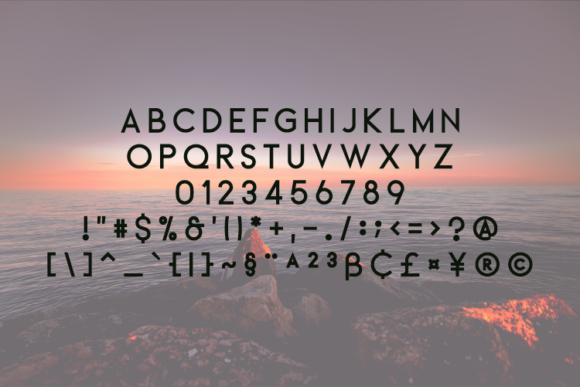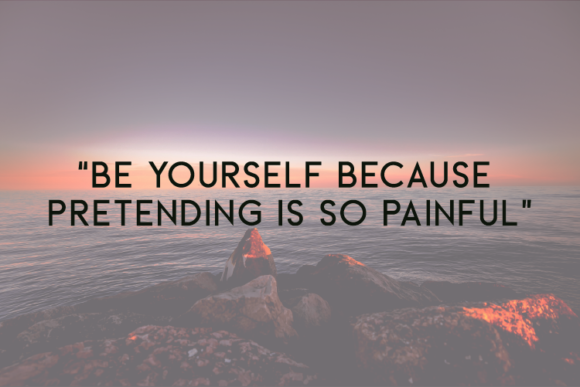
Introduction to Hodtelvo Font
Have you ever stared at a blank canvas, searching for the perfect font to bring your creative project to life? It’s that moment when you need a design resource that’s not only visually stunning but also versatile enough to adapt to any style. For designers like you, finding the right font can be a game-changer. And that’s where the Hodtelvo Font comes in – a modern sans serif font that’s about to revolutionize your design process.
With its neat and beautiful arrangement of letters, the Hodtelvo Font is perfect for both formal and non-formal designs. Its high quality and transparent background make it an ideal choice for any creative project. Whether you’re working on a business logo or a personal blog, this font will elevate your design to the next level. And the best part? You can download it for free, making it an accessible design resource for designers of all levels.
Key Features of Hodtelvo Font
- Unique, modern font style with a transparent background, perfect for adding a touch of elegance to any design.
- Perfect for use in digital design projects, including logos, brochures, business cards, and more.
Honest Review: Hodtelvo Font
I recently had the chance to work with the Hodtelvo Font, and I must say it’s been a solid addition to my design resource collection. One thing that stands out is the high quality of the font itself – the details and smoothness are top-notch.
- ✨ The font’s transparent background makes it easy to layer and mix with other design elements
- ⚠️ Limited character set – I found myself needing to use a secondary font for certain characters
- ⚠️ Not as extensive in terms of language support, which could be a problem for designers working with clients who speak multiple languages
Overall, I’d say the Hodtelvo Font is a great choice for designers looking for a high-quality, free font for their creative projects. Just be aware of the limitations mentioned above, and you’ll be golden.
The Hodtelvo Font is ideal for use in a variety of creative projects, including logos, business cards, and infographics. Its high-quality design and transparent background make it a versatile and effective design resource for any project.